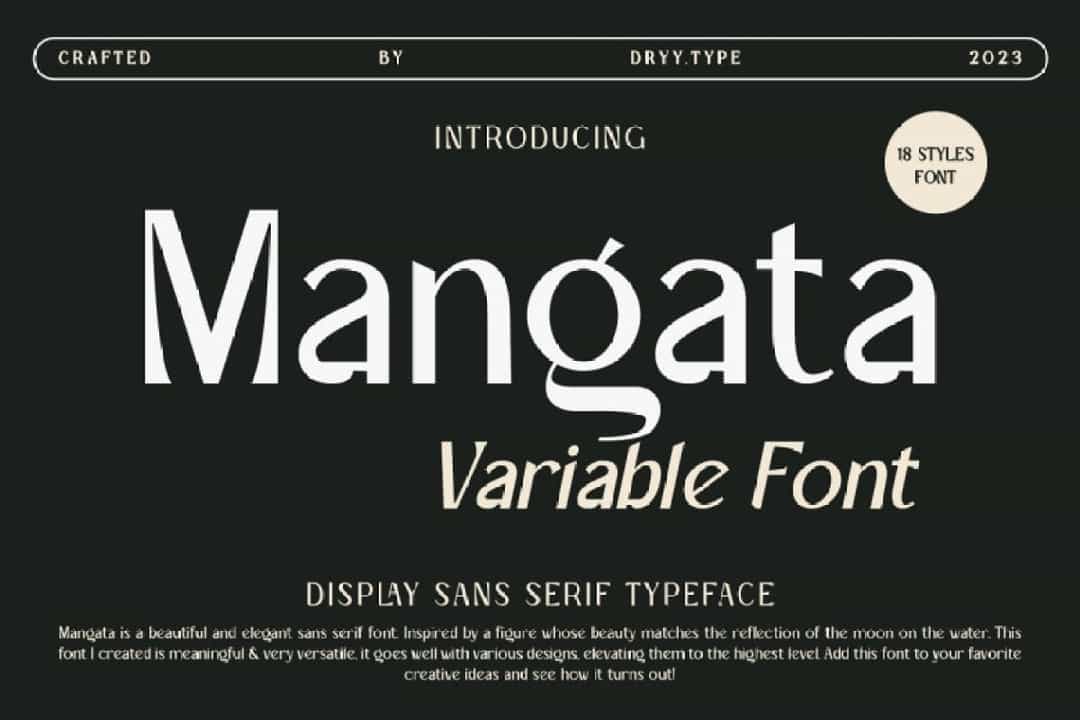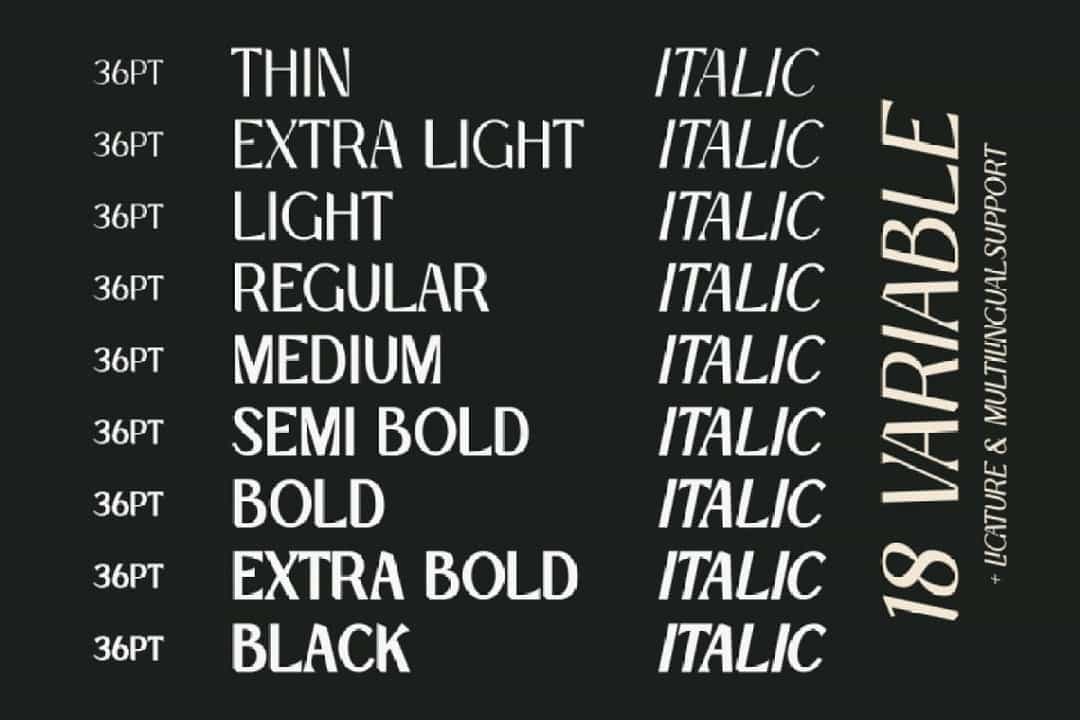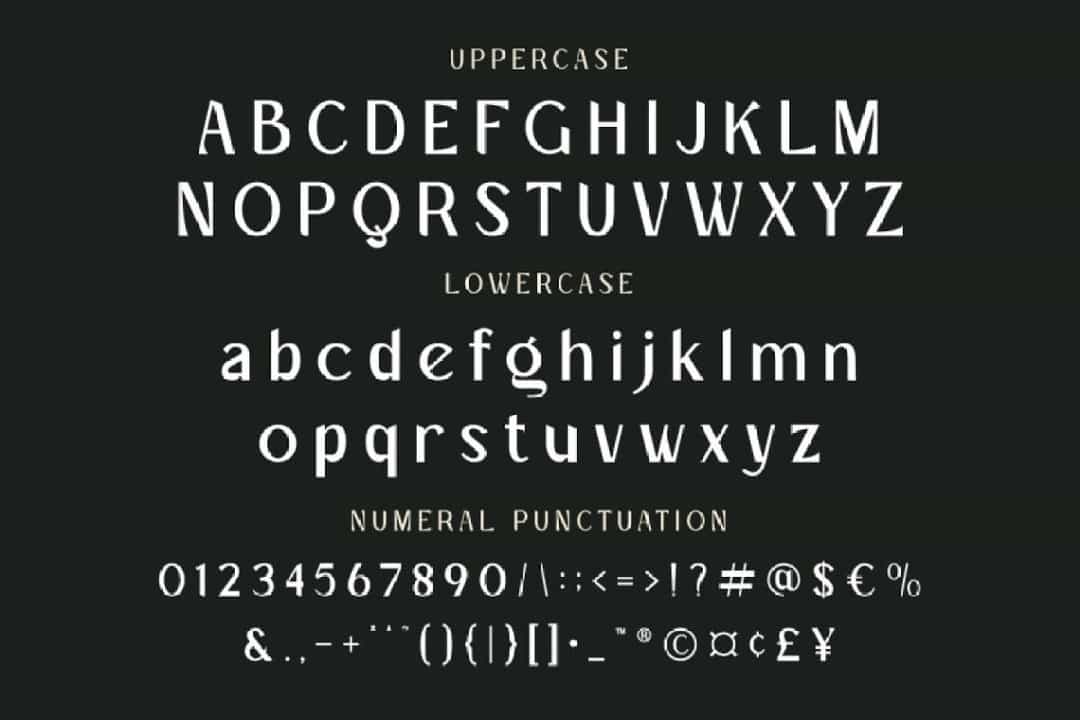
Mangata can be described as an exquisite and sophisticated sans serif font. The inspiration for its design came from an attractive figure which symbolizes the reflection of moonlight on water. I created it to be meaningful yet adaptable enough for various styles that elevate their quality; why not incorporate this font in your creative concepts to see how it plays out!